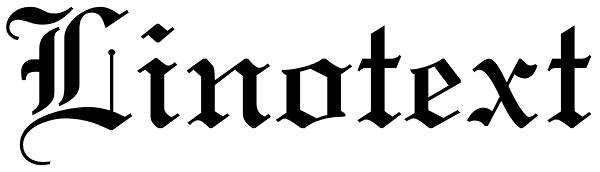
Linotext
Linotext was designed by Morris Fuller Benton in 1901 and released by American Type Founders as Wedding Text; Linotype picked up the design in 1924. Linotext is typical of nineteenth-century type designs known as Old English, in which...